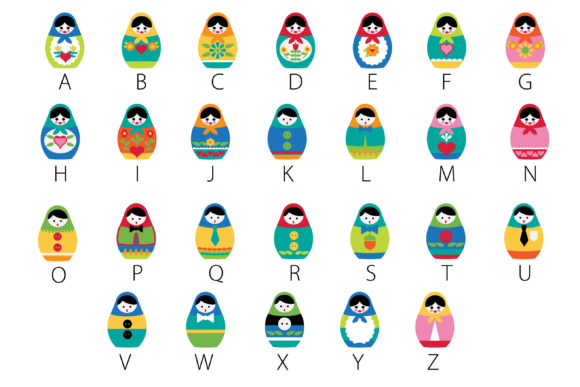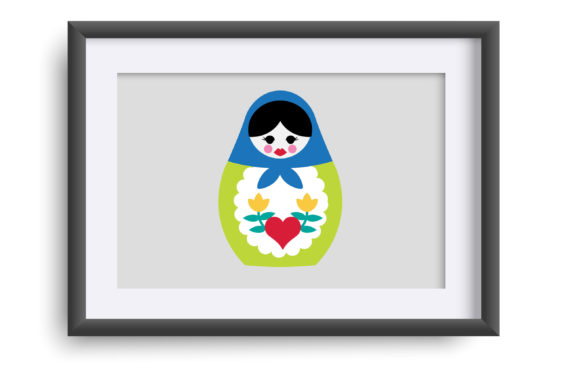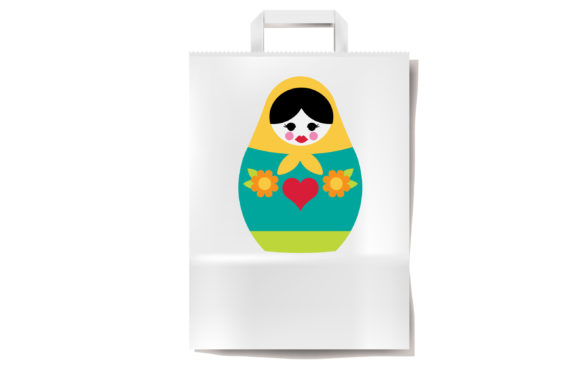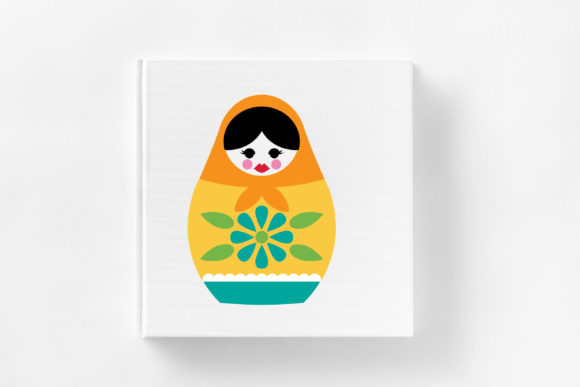
Introduction to Matryoshka Font
Have you ever found yourself stuck on a creative project, searching for that perfect font to bring your design to life? I know I have. It’s that moment when everything feels just a little bit off, and you know you need something special to elevate your work. For designers, finding the right font can be a game-changer, and that’s where the Matryoshka Font comes in.
This sweet, useful, and unique color font is a valuable addition to any design arsenal. With its high quality and versatility, it’s perfect for adding a touch of whimsy to your creations. Whether you’re working on a personal project or a client brief, the Matryoshka Font is sure to impress.
Key Features of Matryoshka Font
- High-resolution vector design, ideal for large-scale prints and digital displays.
- High-quality design with intricate details, suitable for various design applications, including print and digital media.
- Customizable and editable, enabling users to tailor the design to suit their specific needs and style.
- Perfect for use in various design contexts, including graphic design, digital art, and creative projects requiring a unique, high-quality design element.
Honest Review: Matryoshka Font
As a designer, I’m always on the lookout for high-quality design resources to elevate my creative projects. Recently, I came across the Matryoshka Font, and I’m excited to share my honest review.
- ✨ High-quality design: The Matryoshka Font features beautiful, intricate details that are perfect for adding a touch of elegance to any design project.
- ✨ Transparent background: The font’s transparent background makes it easy to layer and composite with other design elements.
Any limitations:
- ⚠️ Limited character set: Unfortunately, the Matryoshka Font only includes a limited character set, which may not be suitable for projects requiring extensive text.
- ⚠️ Not ideal for body text: While the font is perfect for headings and titles, it may not be the best choice for body text due to its ornate nature.
Overall, I’m impressed with the Matryoshka Font’s design quality and versatility. While it has some limitations, it’s a great resource to have in your design arsenal, especially for creative projects requiring a touch of sophistication.
Matryoshka Font
Use the Matryoshka Font with a transparent background to give your design a unique look. Experiment with different font sizes and colors to create a visually appealing design. This font is perfect for creative projects that require a high-quality design resource.
The Matryoshka Font is commonly used in creative projects such as: infographics, posters, flyers, and presentations. It’s also great for personal projects like blog posts, social media graphics, and business cards.